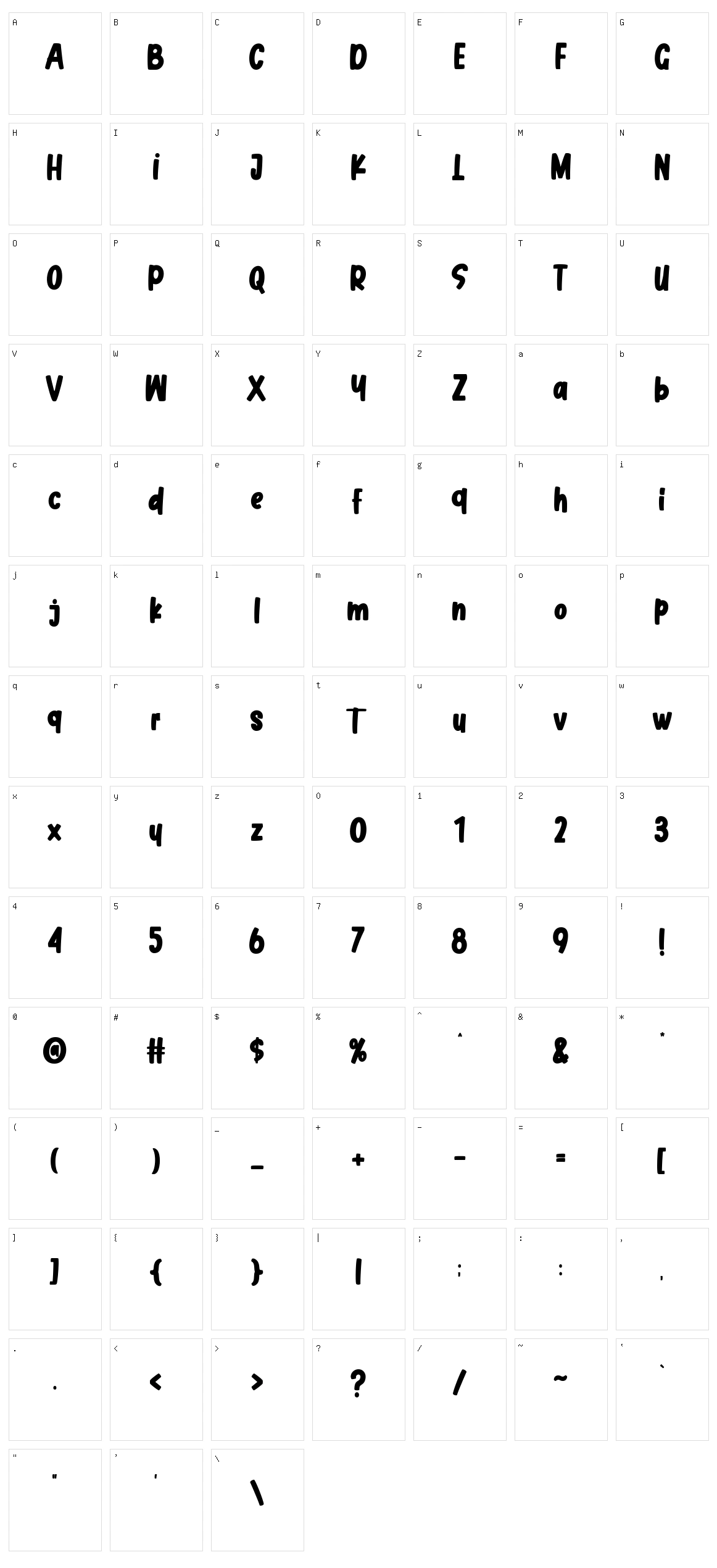
The free font Cherry Blue is carefully designed by Four Lines, showcasing a thoughtful balance of creativity and usability and falls under the Cartoon font style. When you download the ZIP file, it contains only 30.36 KB of font files, making it lightweight and quick to download. Please review the license details below to understand permitted usage and distribution rights. If license information is not available, we recommend using this font for personal projects only or contacting the author directly for commercial usage permissions.